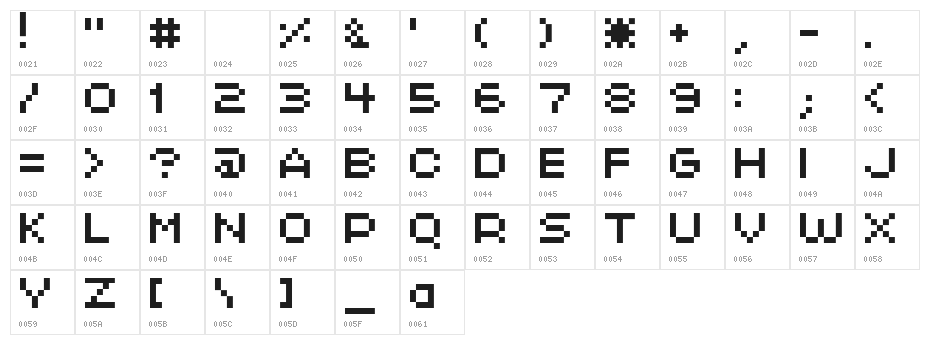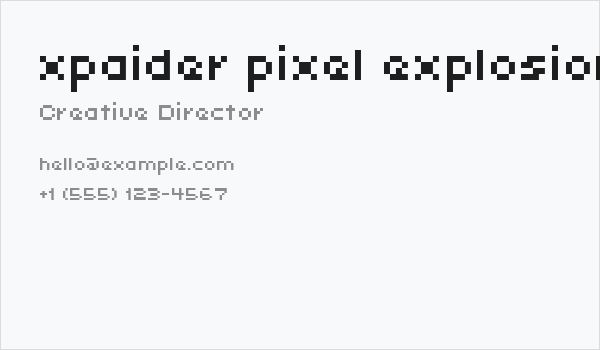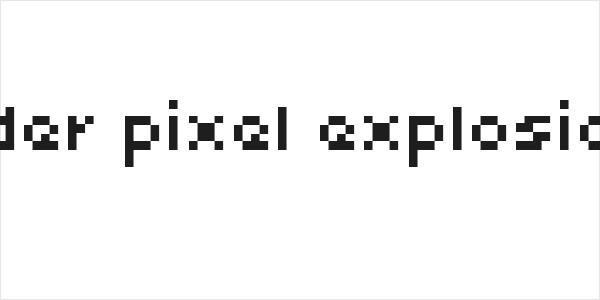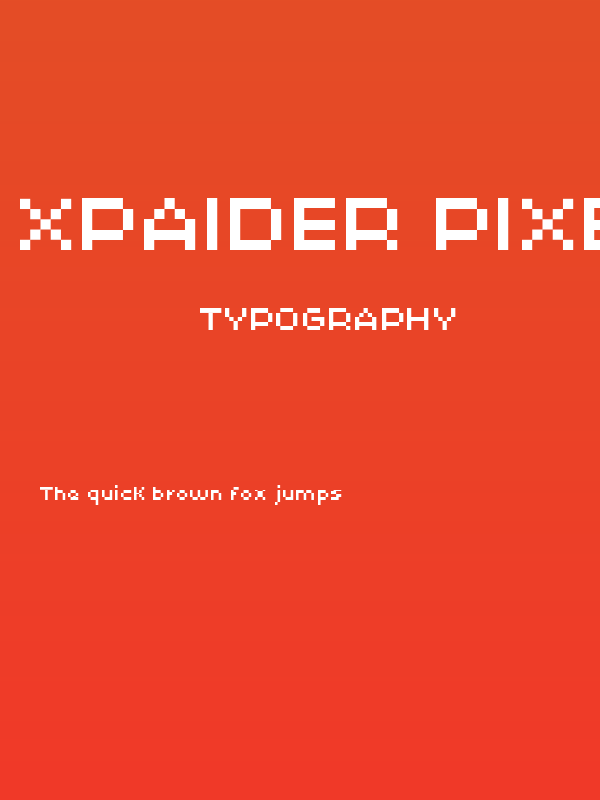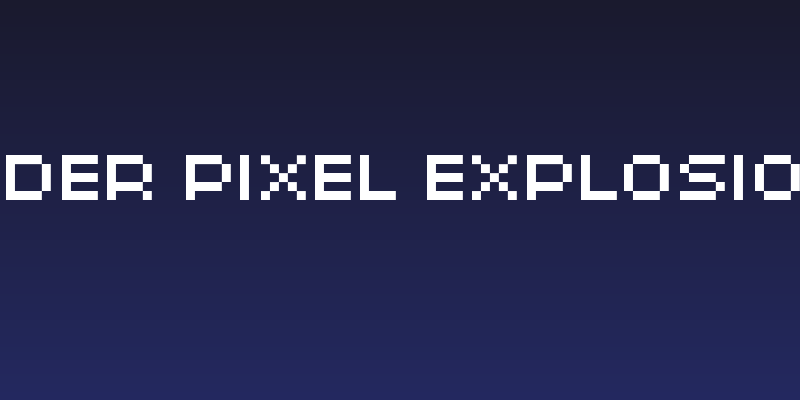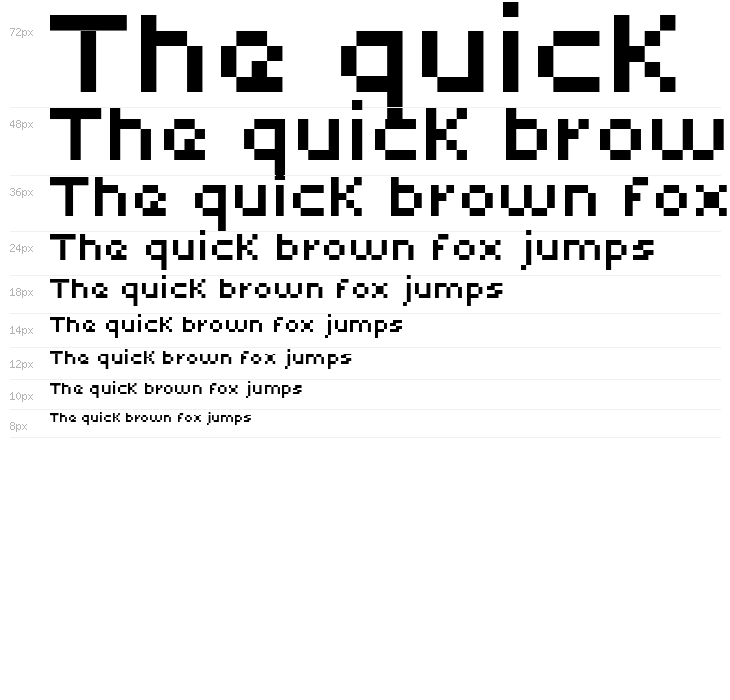
xpaider pixel explosion 01 Font
xpaider pixel explosion 01 Description
This font features a pixelated, blocky design reminiscent of early digital and video game aesthetics. Each character is constructed with a uniform grid-like structure, giving it a distinctly retro and digital feel. The uppercase and lowercase letters maintain a consistent height, with minimal differentiation between the two, enhancing its pixel art style. Numbers and special characters follow the same design principles, ensuring a cohesive look across all glyphs. The font's simplicity and geometric precision make it ideal for projects that aim to evoke nostalgia or a tech-oriented theme.
XPAIDER-PIXEL-EXPLOSION-01 UPPERCASE
XPAIDER-PIXEL-EXPLOSION-01 LOWERCASE
XPAIDER-PIXEL-EXPLOSION-01 OTHER CHARS
| Overall Style | Retro, Digital |
| Use Case | Headlines, Logos, Digital Art |
| Proposed Projects | Ideal for video game design, retro-themed graphics, digital art projects, and tech-related branding. |